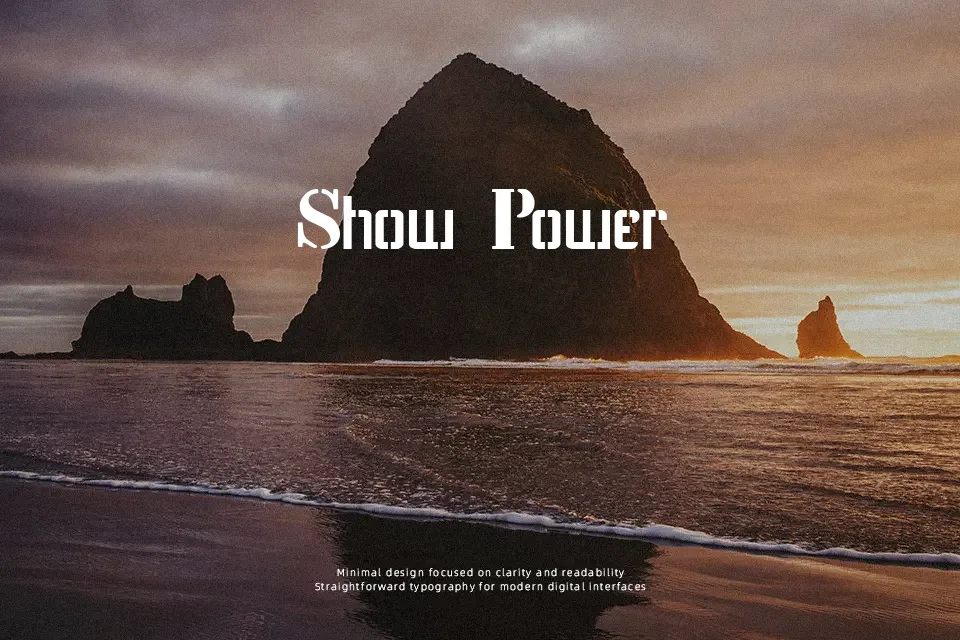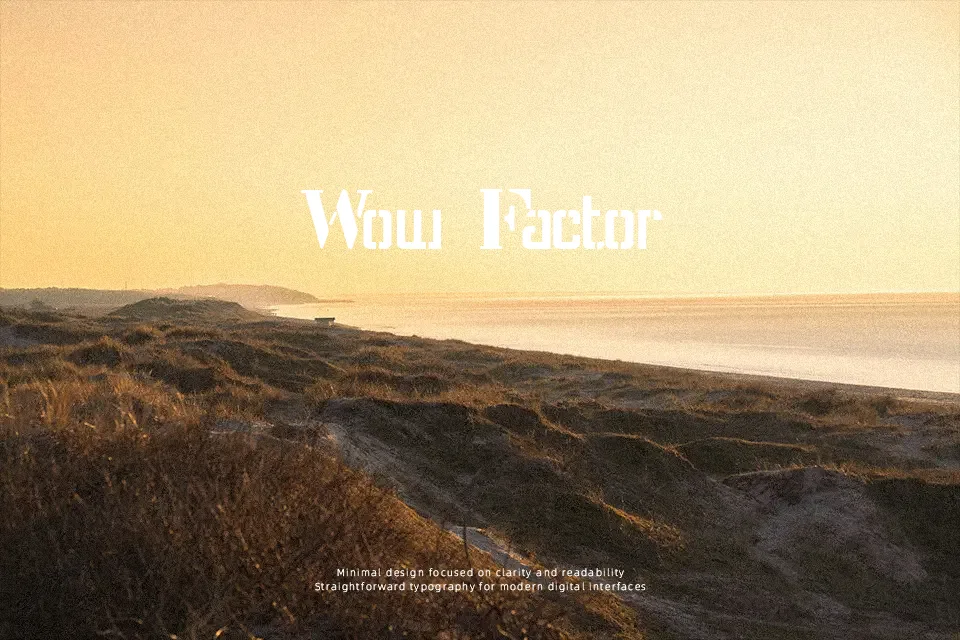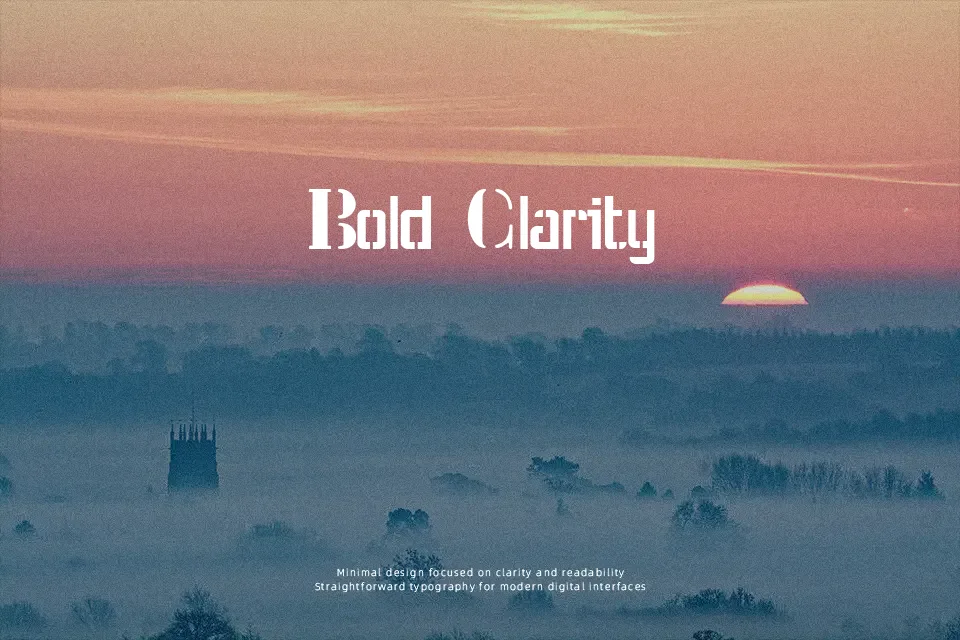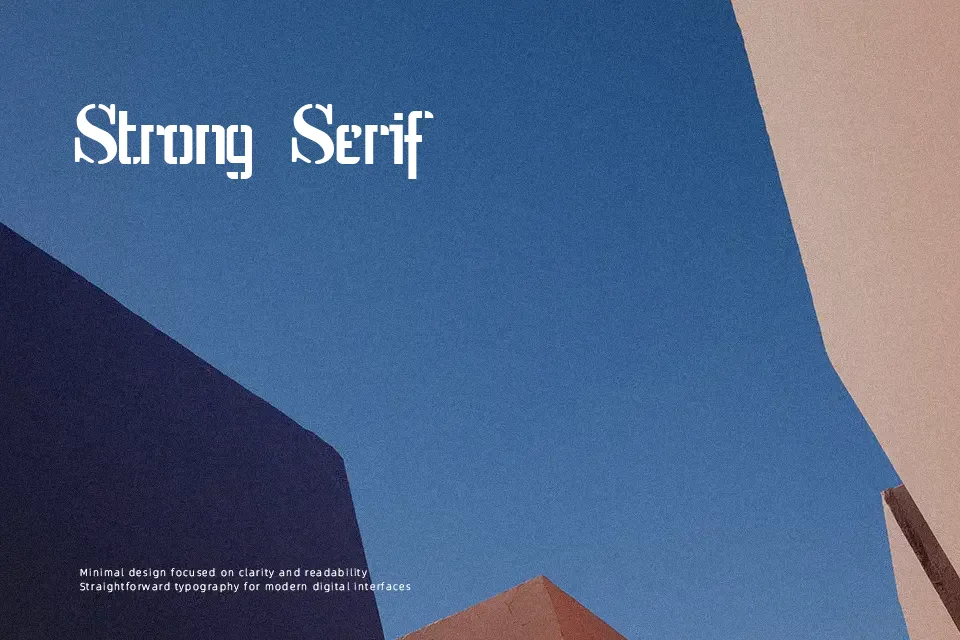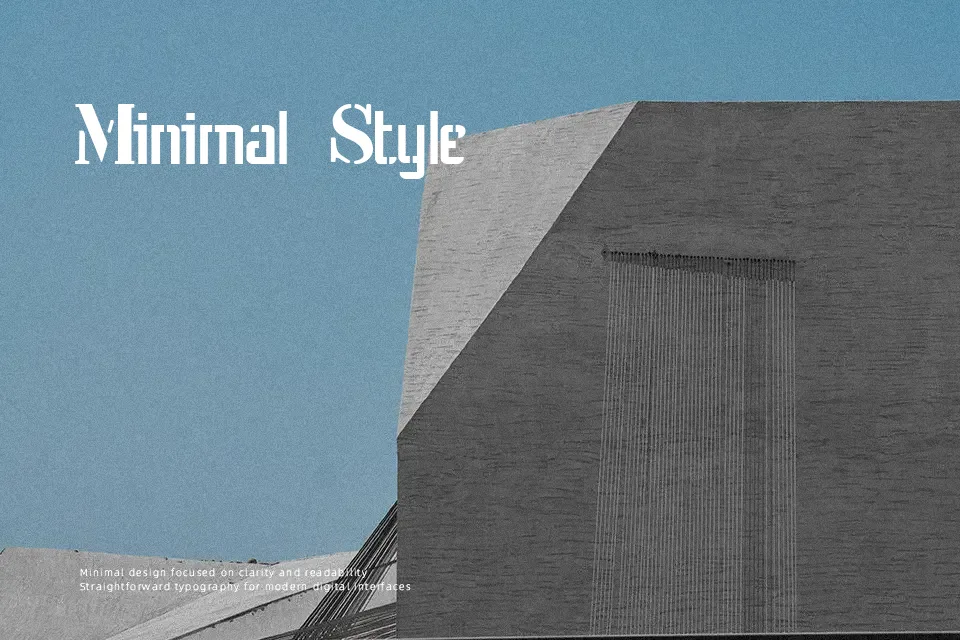
Stencil Intellecta Font
Designed by Intellecta Design
Featuring segmented strokes and pronounced bridge gaps, Stencil Intellecta Font delivers a rugged mechanical aesthetic rooted in utility-driven stencil lettering. The typeface exhibits solid stroke weights, uniform vertical proportions, and deliberate structural divisions that isolate character segments while preserving recognizable silhouettes. Moderate letter spacing gives each glyph sufficient breathing room, allowing title sequences and short slogans to maintain high legibility from a distance. The solid bridges provide strong visual clarity on large-format media, making the design suitable for bold signage, shipping crate graphics, and display headers. However, the severed strokes and enclosed counters become difficult to parse at small sizes, making the letterforms impractical for continuous body text.
industrial packaging,military-themed posters,warehouse signage,cargo apparel graphics
continuous body text,dense book editorial layouts,small interface labels,legal documents
Perfect for advertising, branding, and headline, with a bold and display style.